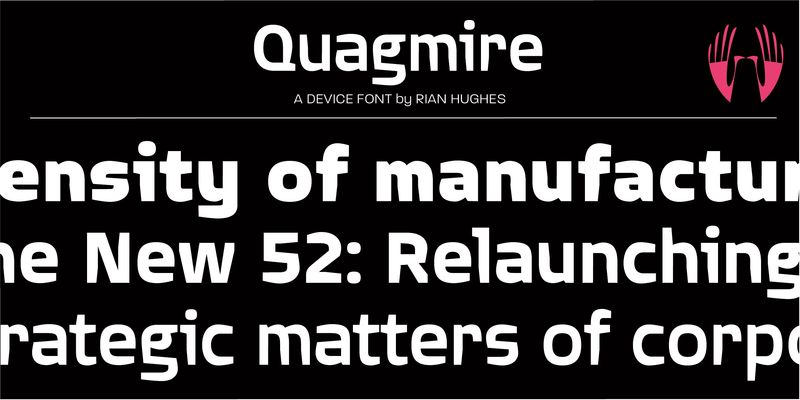
Quagmire specimen
Quagmire
A versatile, modern sans with enough character to elevate it from the ordinary, while remaining readable in longer sentences. Clean, sharp, fresh.